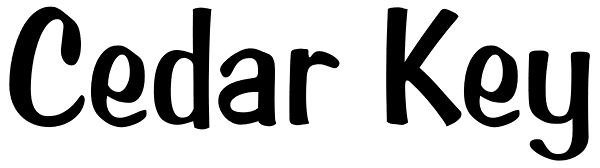
Cedar Key
A brush letter with that real retro feeling, works well for both headline and text settings. This font represents a time when hand lettering was so popular. There is also a matching oblique letter.